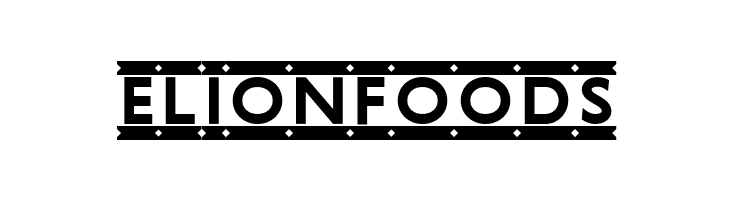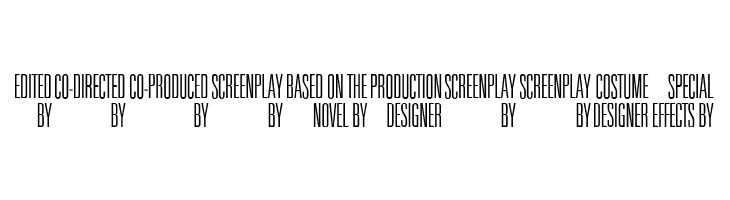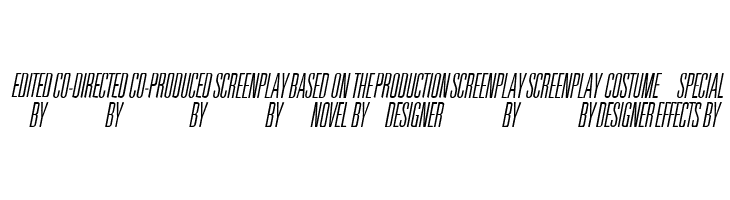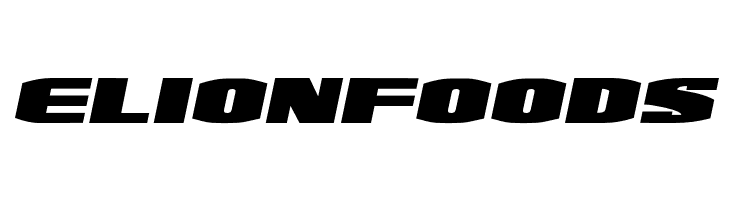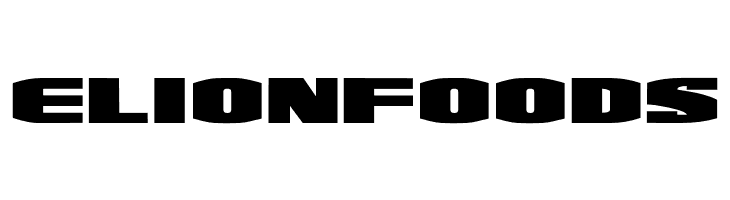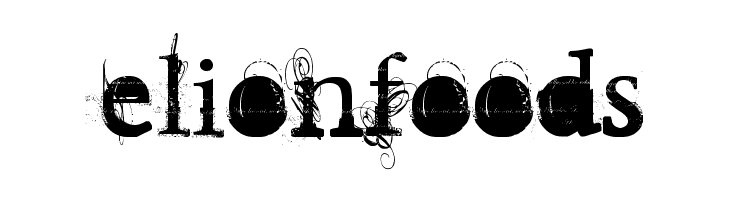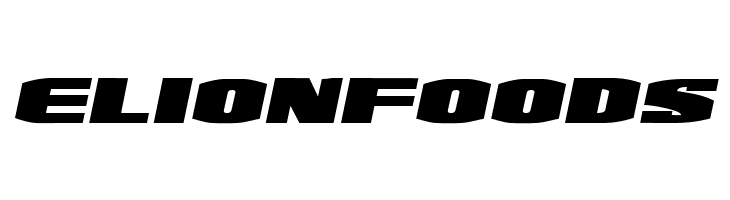
• UltraViolent BB
A bold, angular font with a strong, aggressive style.
• UltraViolent BB Italic
A bold, italic font with a dynamic and edgy style, perfect for impactful designs.
• UltraViolentBB
A bold, futuristic font with sharp angles and a strong presence.
• UltraViolentBB-Italic
Bold, italicized font with angular strokes and a futuristic style.
• UNDECAPPED Vinyl
A bold, distressed font with decorative flourishes and a grunge aesthetic.
• Underground NF
A bold, geometric sans-serif font with a modern and clean aesthetic.
• UndergroundNF
A bold, geometric sans-serif font with a modern and structured design.
• UnderWorld
• Universal Accreditation
A tall, narrow font with clean lines and a modern, elegant style.
• Universal Accreditation Italic
A sleek, modern italic font with elongated, condensed letterforms.